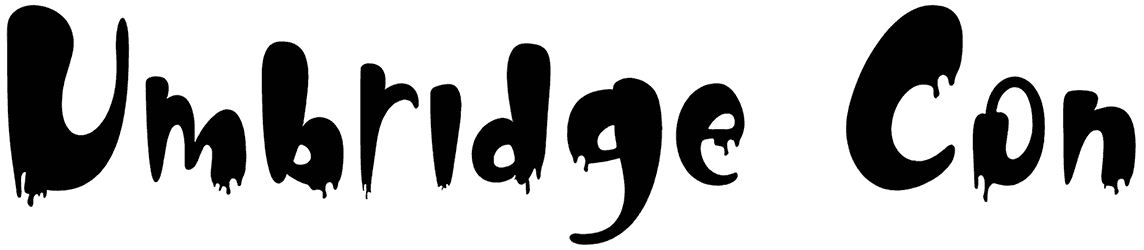
Umbridge Con Font
If you like to show off your design with a fancy and at the same time alarming face, this will be your lucky day. As a horror font, Umbridge Con has bulky dripping outward, but it is better not to count on punctuation marks. For Halloween designs or any other scary projects, you can test this bloody font and give it a catchy vibe.